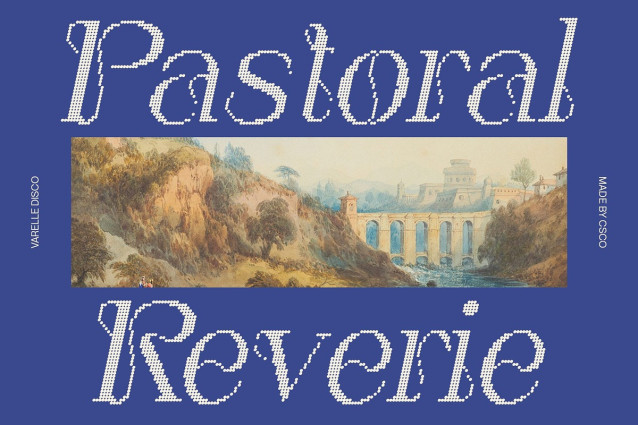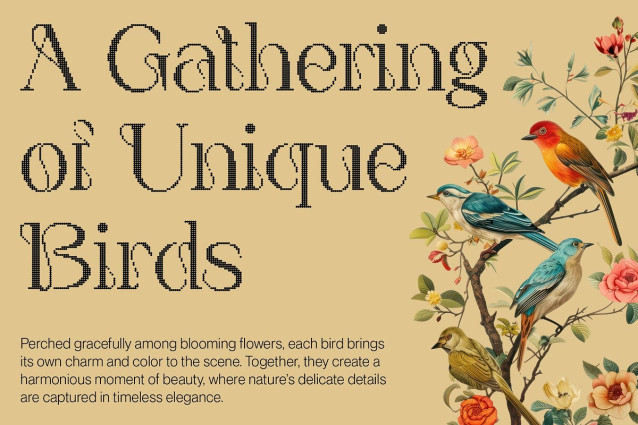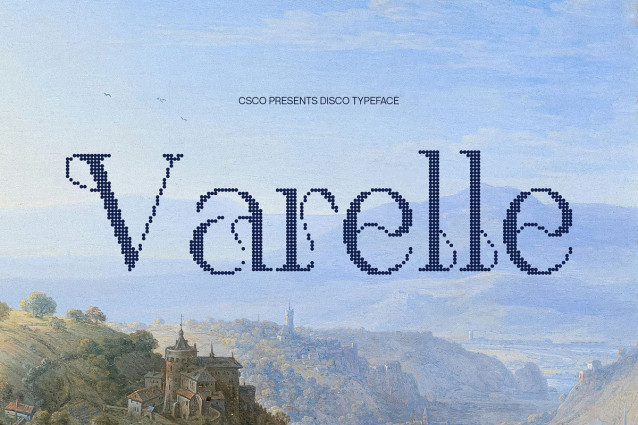
Varelle Disco Font
Varelle Disco Font: Where Art Nouveau Meets Sparkling Glamour Art Nouveau Curves with Modern Simplicity This is a unique display font that fuses the organic elegance of Art Nouveau with the clean clarity of modern design. Its flowing curves bring sophistication and grace, while the streamlined forms ensure it remains versatile and contemporary. This balance creates a typeface that feels both timeless and fresh. Disco Effect for Sparkle and Energy The defining feature of this font is its shimmering disco effect. Each character glimmers with visual energy, creating a glamorous and dynamic impression. This sparkling detail infuses the font with movement and life, making it the perfect choice for designs that aim to radiate excitement and creativity. Stylish and Sophisticated Aesthetic This is thrives on elegance and flair, blending ornamental curves with modern simplicity. The result is a font that communicates style, personality, and artistic charm. It is particularly effective when you want your designs to feel sophisticated yet playful, ideal for projects that stand out in a competitive visual landscape. Perfect for Bold Creative Projects From branding and editorial layouts to posters and artistic campaigns, adapts to a wide variety of applications. Whether you’re designing for fashion, entertainment, or contemporary branding, this font delivers striking impact. It’s stylish, full of character, and always visually captivating. Download Type Speciment: — What you get : – Varelle Disco Regular – Varelle Disco Italic Features : – Uppercase and lowercase characters – Numerals and Punctuation (OpenType Standard) – Accents (Supports Multilingual Characters) – PUA Encoding — You can use this typeface without needing any specialized software. — If you have any inquiries or need assistance, please feel free to contact us. We appreciate your support in enhancing your creative projects! Best regards, Craft Supply Co.